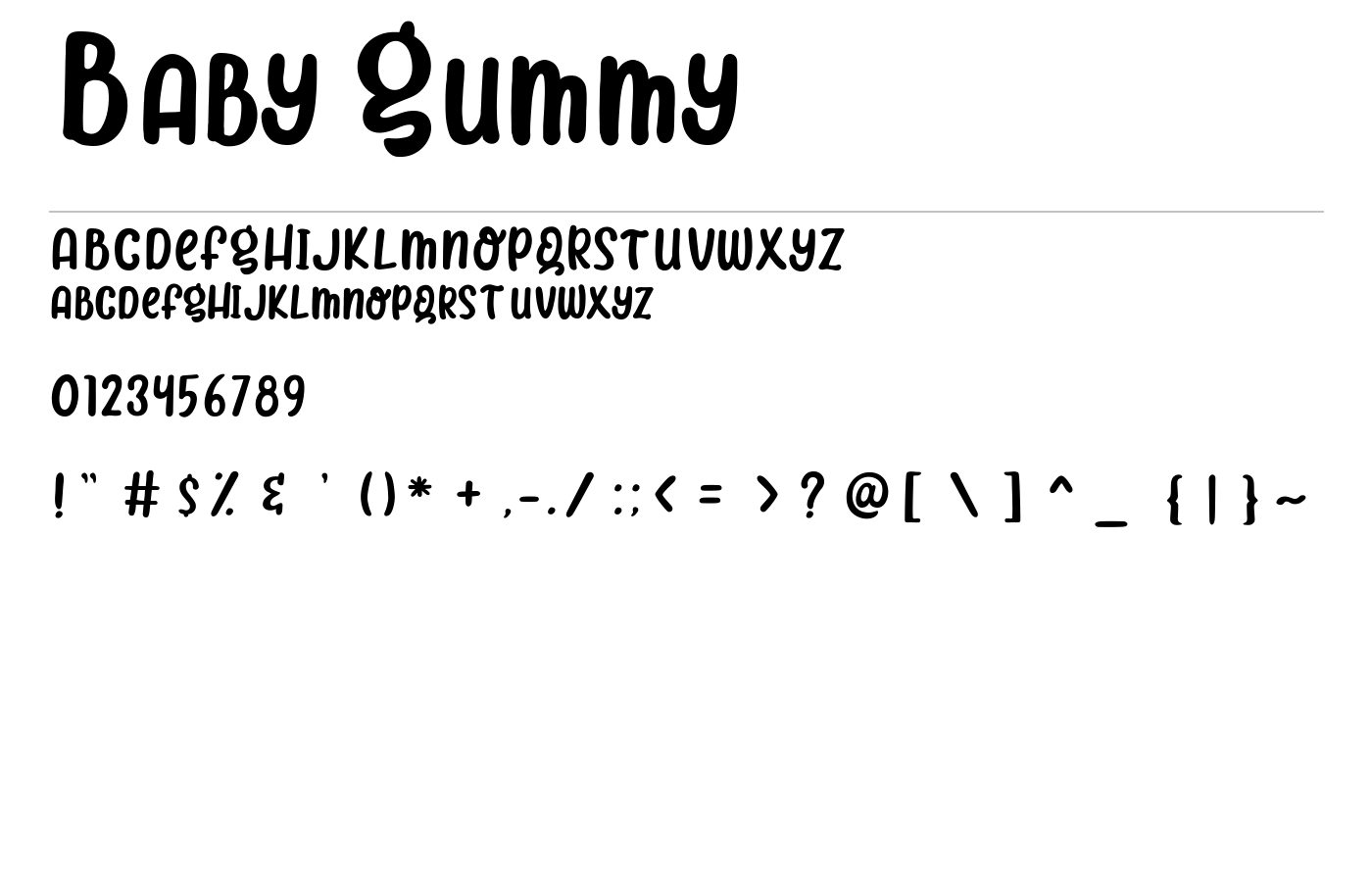
Baby Gummy is a playful, hand-drawn sans serif font with rounded, bubbly letterforms that give it a fun and friendly personality. Its whimsical shapes and casual style make it perfect for children's products, informal branding, or creative projects that want to convey warmth and approachability. This font works well in headlines, logos, and packaging where a lively, inviting tone is desired.
Baby Gummy Font